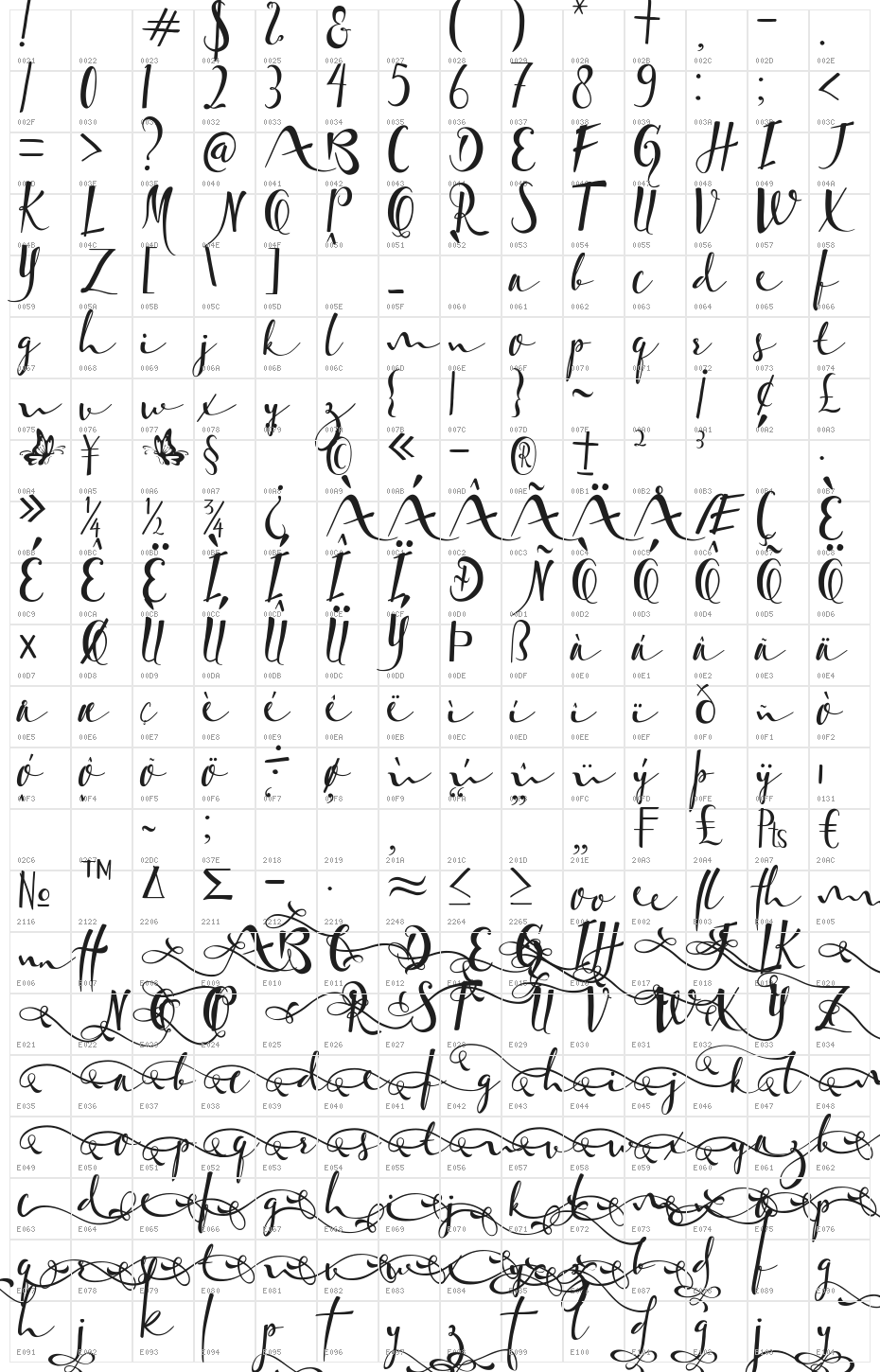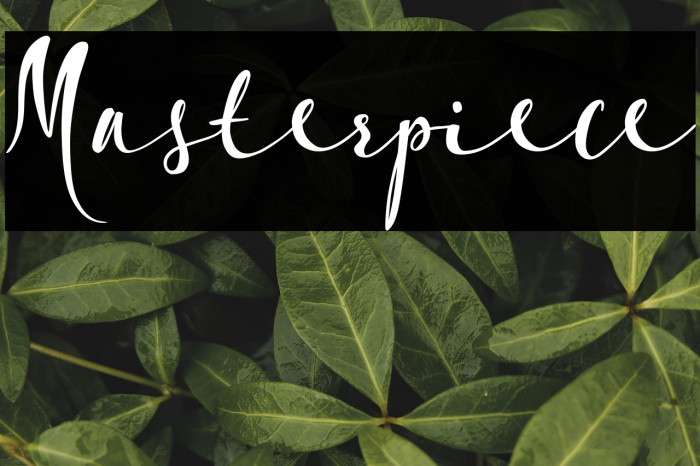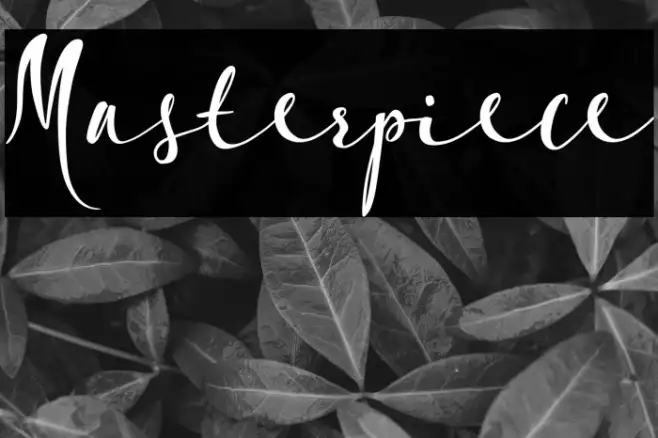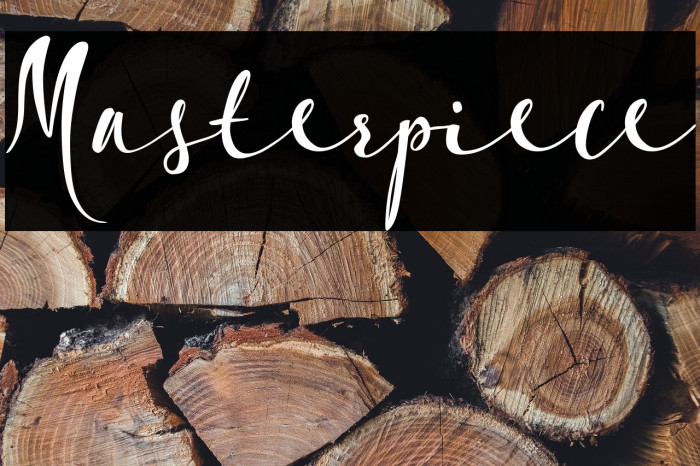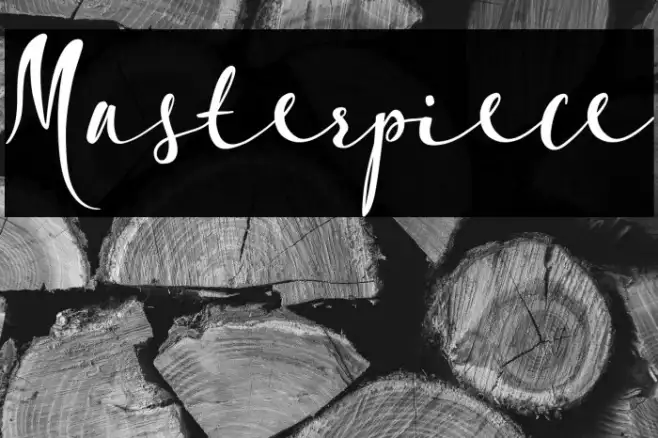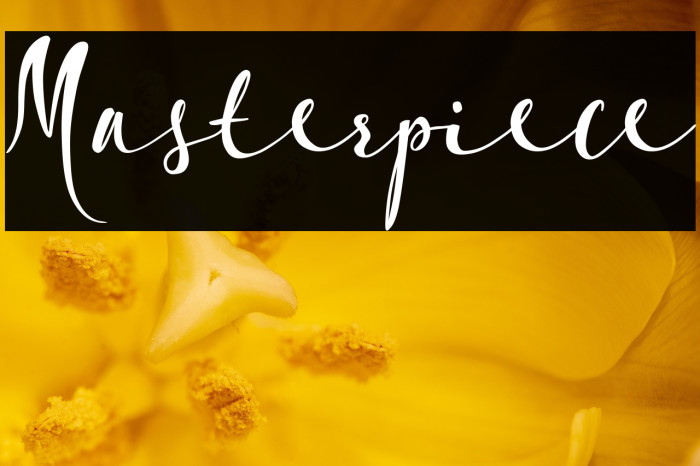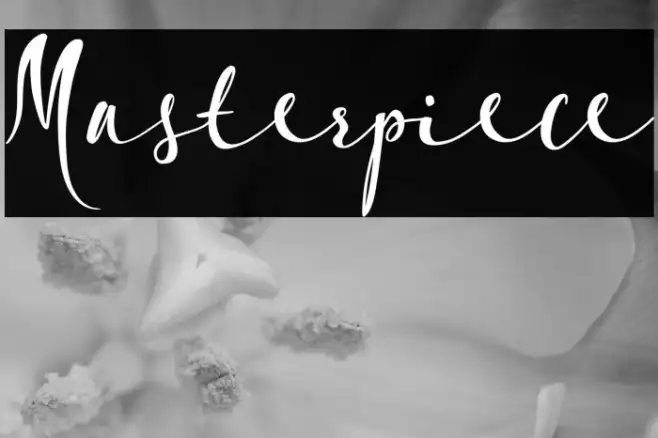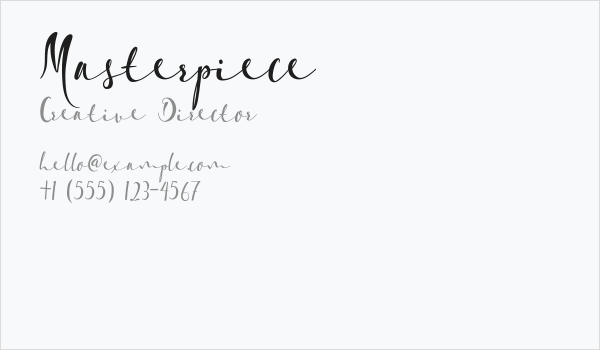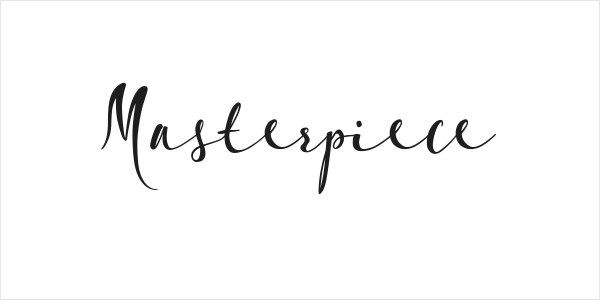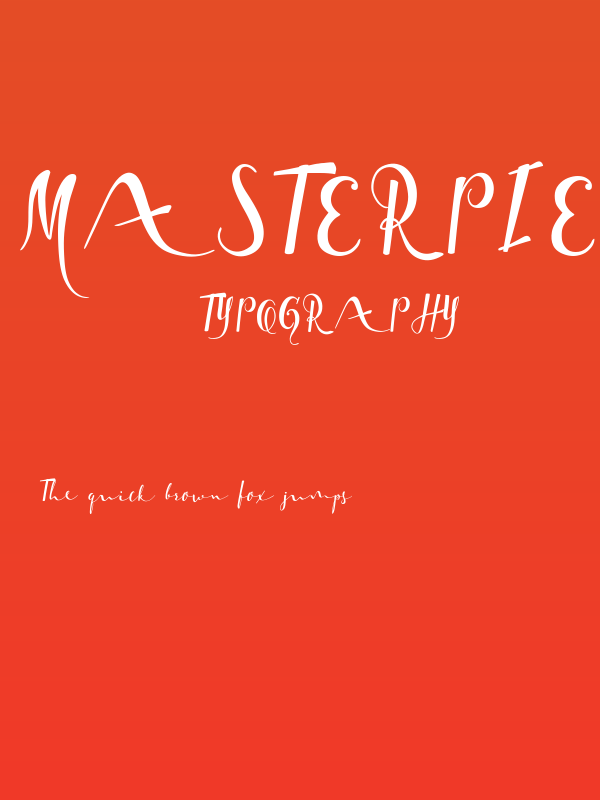
Masterpiece Font
Masterpiece Description
This font features a dynamic and elegant script style with a modern twist. The uppercase letters exhibit a flowing, cursive design with varying stroke widths, adding a sense of movement and grace. The lowercase letters maintain a similar fluidity, enhancing the overall cohesiveness of the typeface. Numbers and special characters are crafted with the same artistic flair, ensuring consistency across all elements. The font's unique character is highlighted by its high contrast in stroke thickness, creating a visually striking appearance. Its artistic and decorative nature makes it suitable for creative projects that require a touch of sophistication and style.
| Proposed Projects | Ideal for wedding invitations, branding, logos, and artistic posters. |